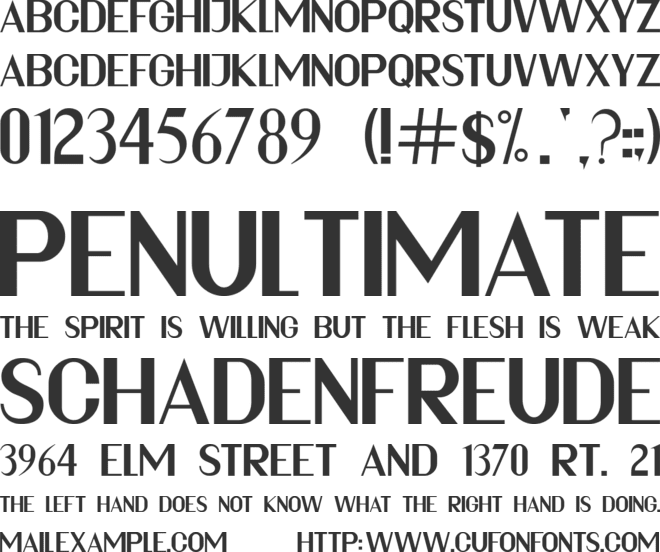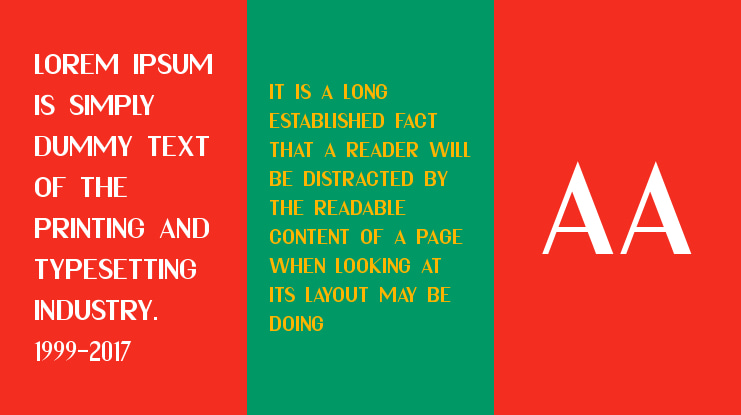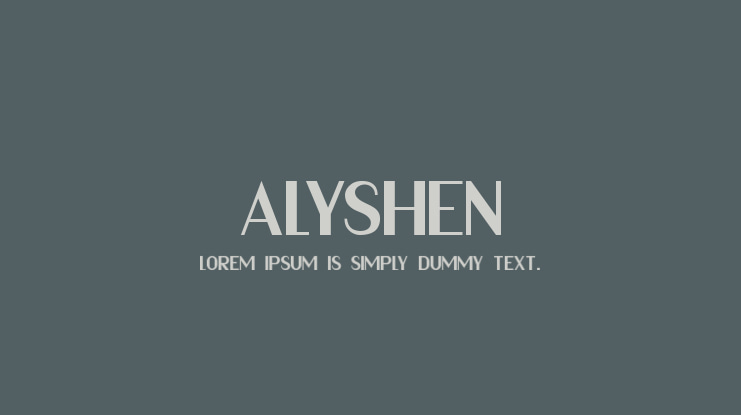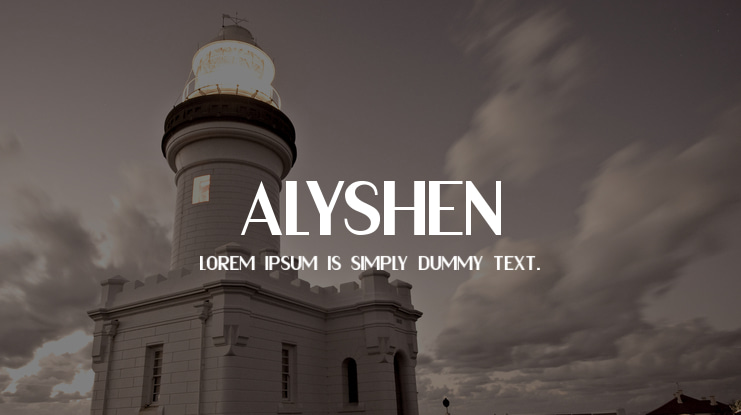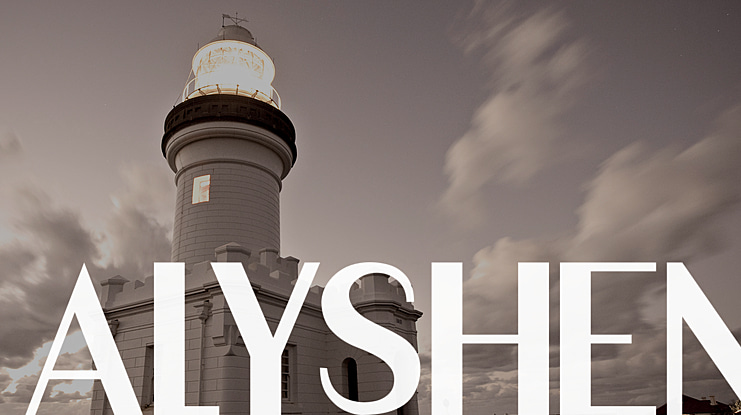
ALYSHEN Font
Artspace 2018
The ALYSHEN is a beautiful Sans Typeface. It has an elegant, yet modern style and will add a personal touch to your designs.